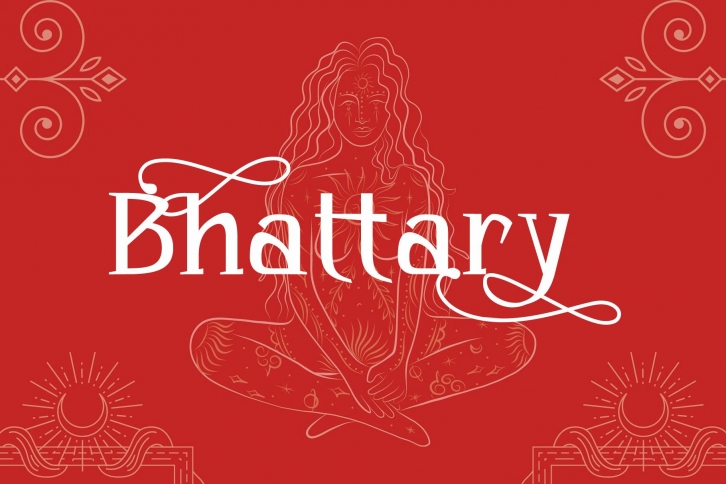
Bhattary is a trendy and unique font with an authentic style. It was designed by Anomali Fontype and it's a great choice for creative people who need such a font. It was released on August 24, 2022 and the file size is 7.22 MB. Bhattary will add an organic vibe to any design idea!